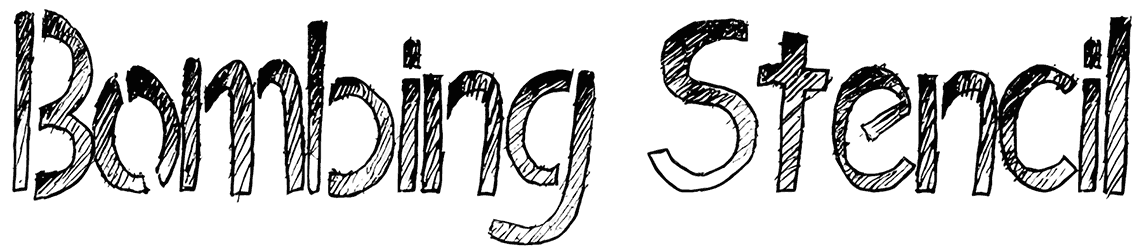
Bombing Stencil Font
If you’re looking for a way to make your projects stand out from other designers, we suggest running a design with Bombing Stencil. This sketched font, which has a gradient theme on its letters, can turn any project into a valuable craft that is even worth framing.
This font creates new strength and confidence in you and can open a new page in your logo, poster or advertisement design notebook.